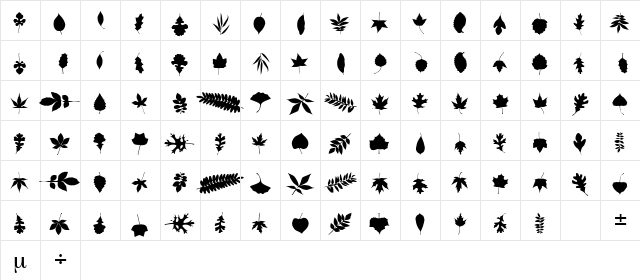
Blaetter Regular
Design Context for Blaetter Typeface
Blaetter is a composed and adaptable typeface that performs quietly and consistently across a wide range of design contexts.